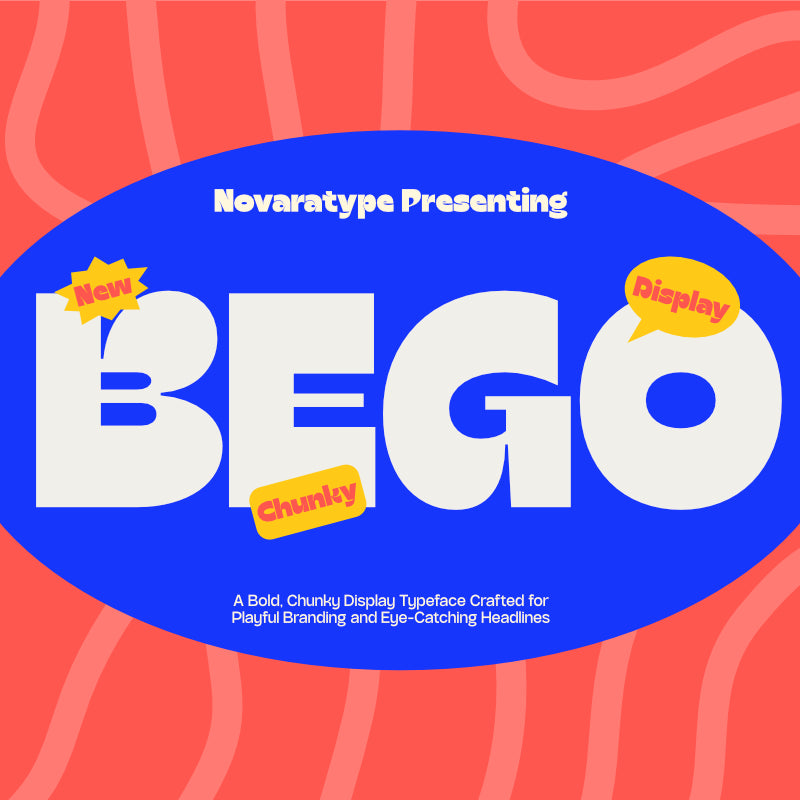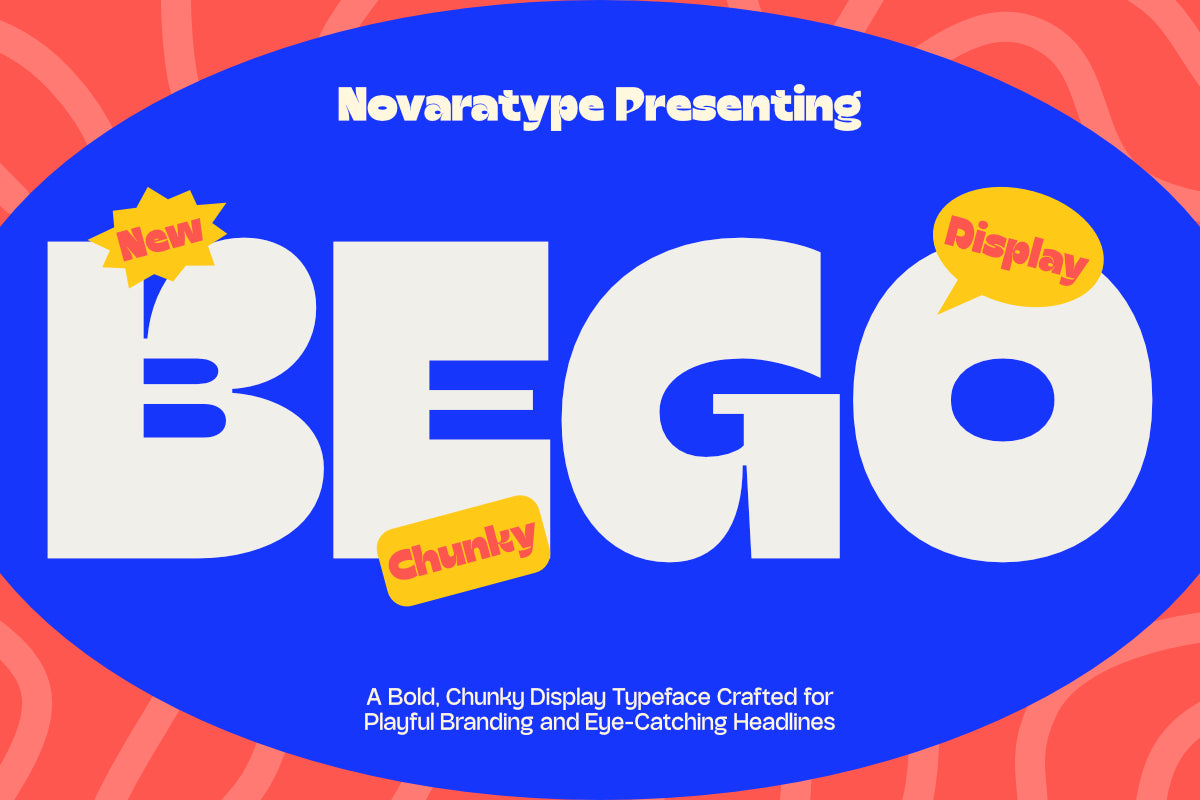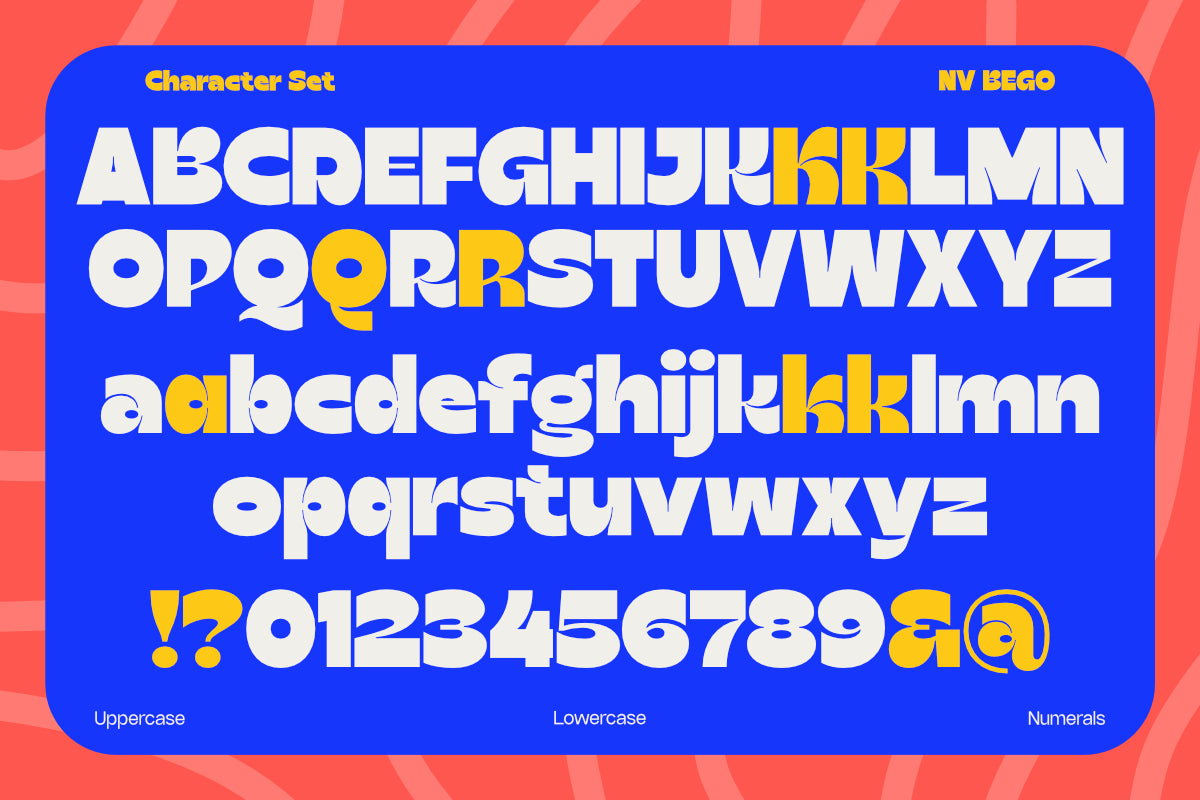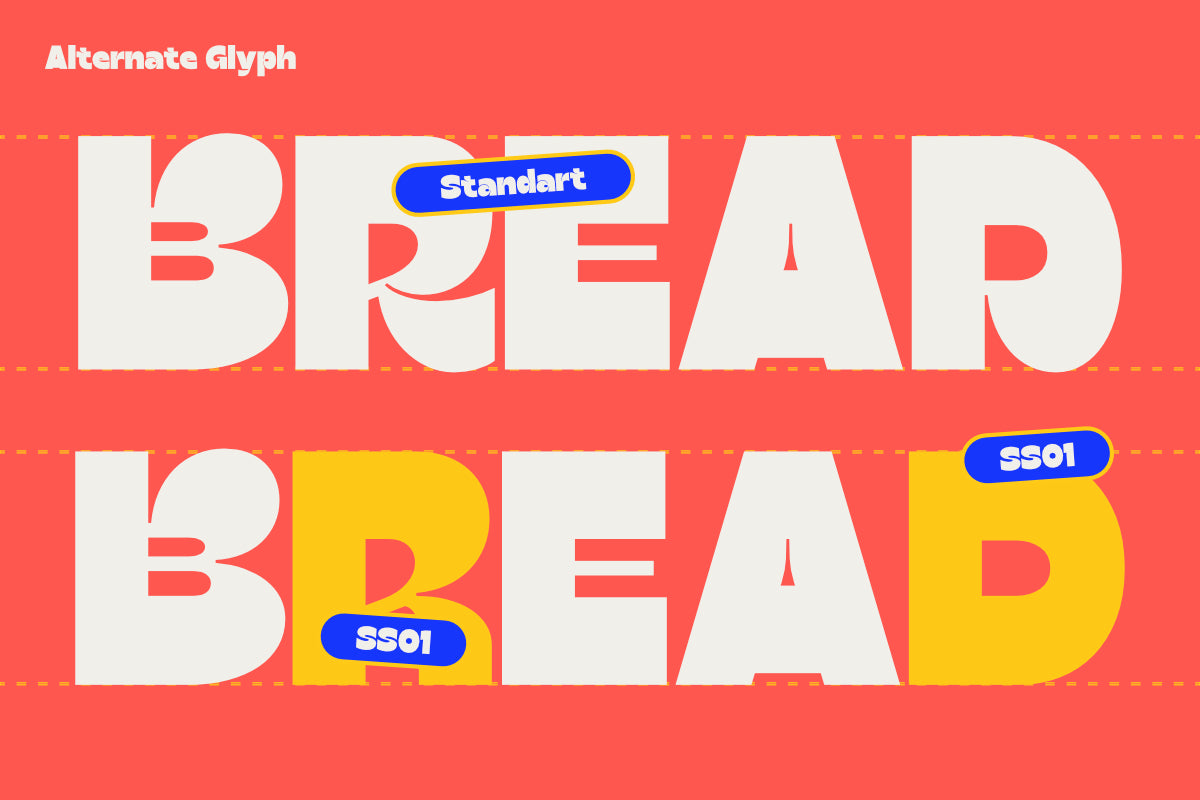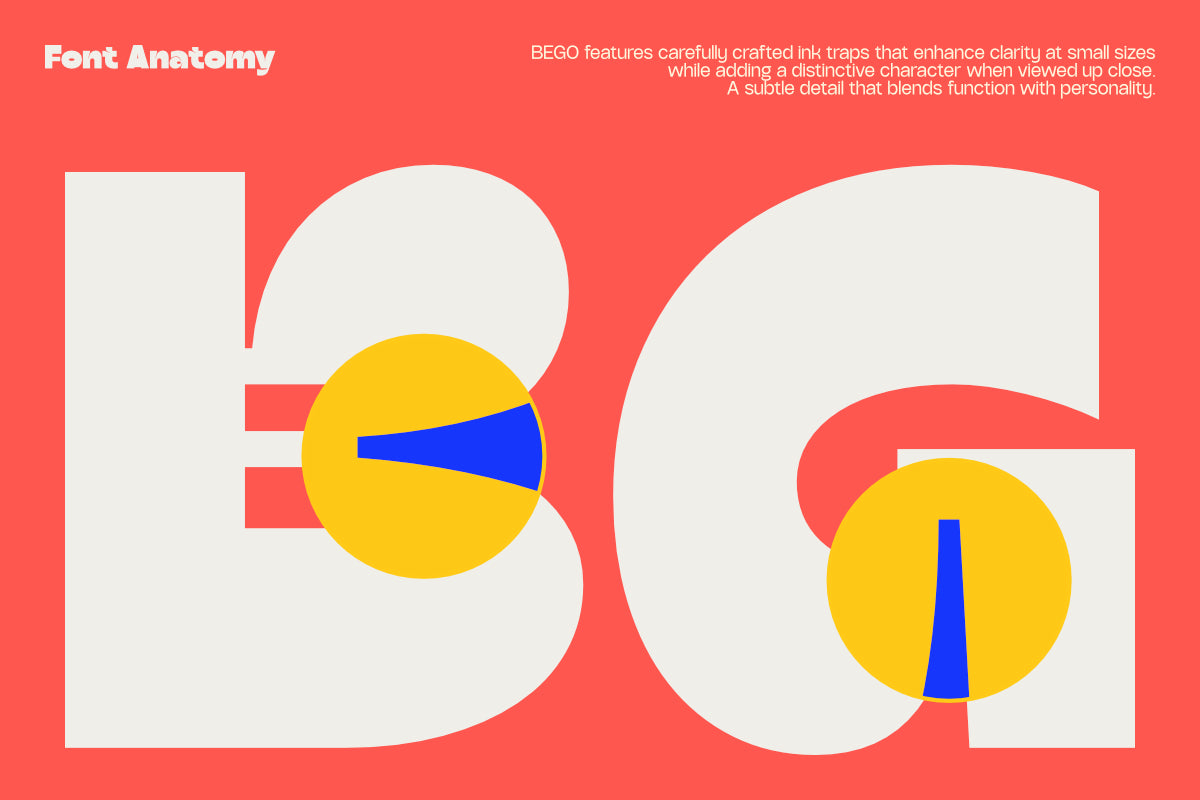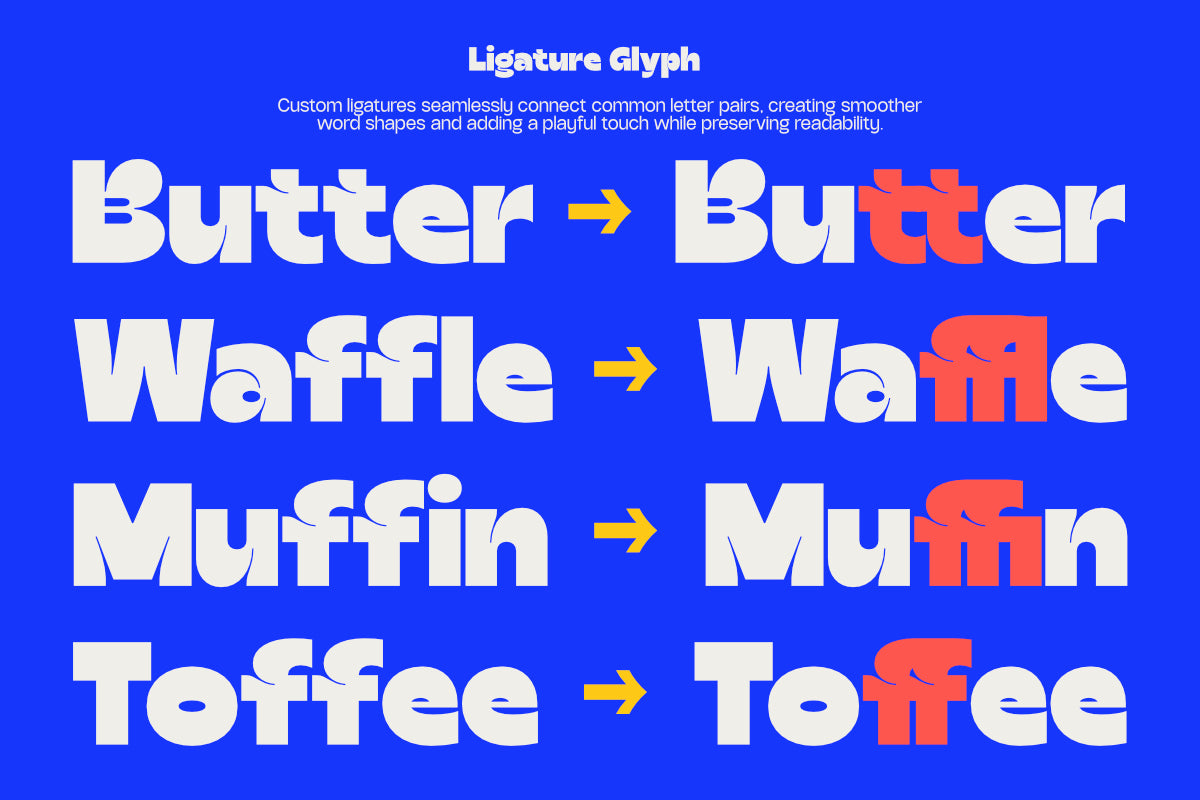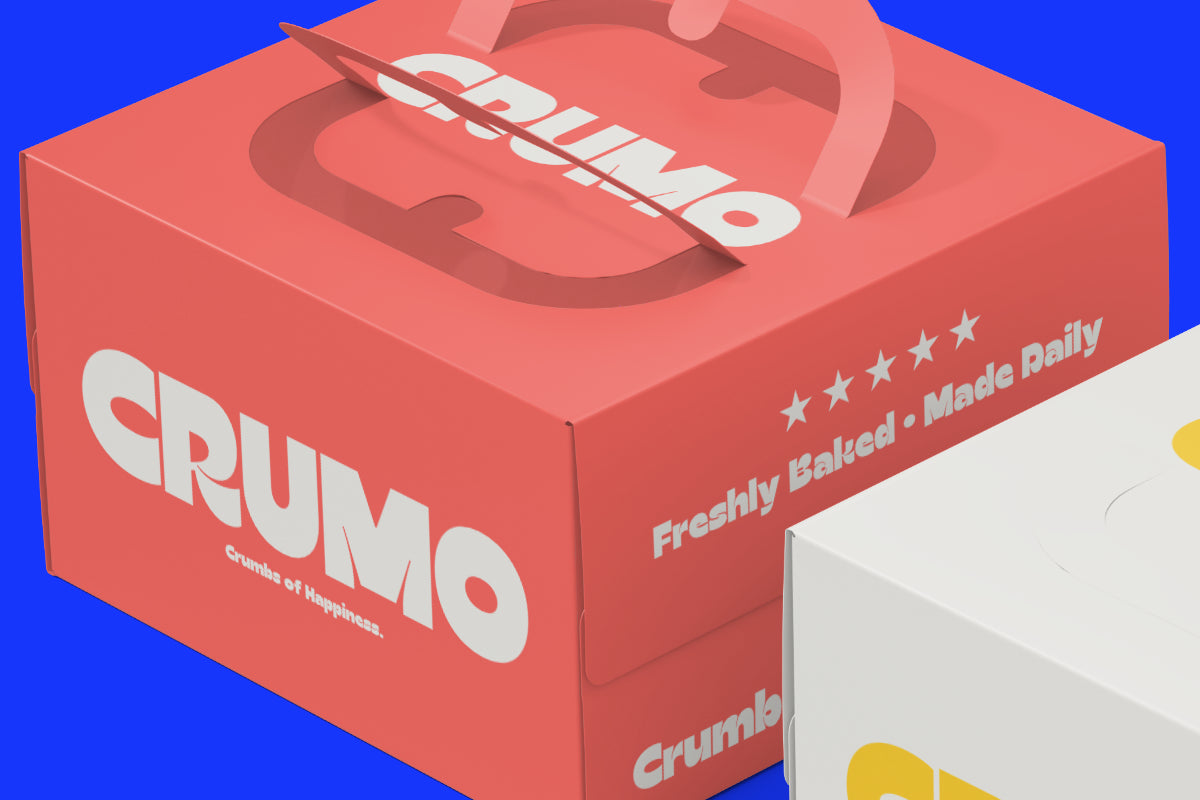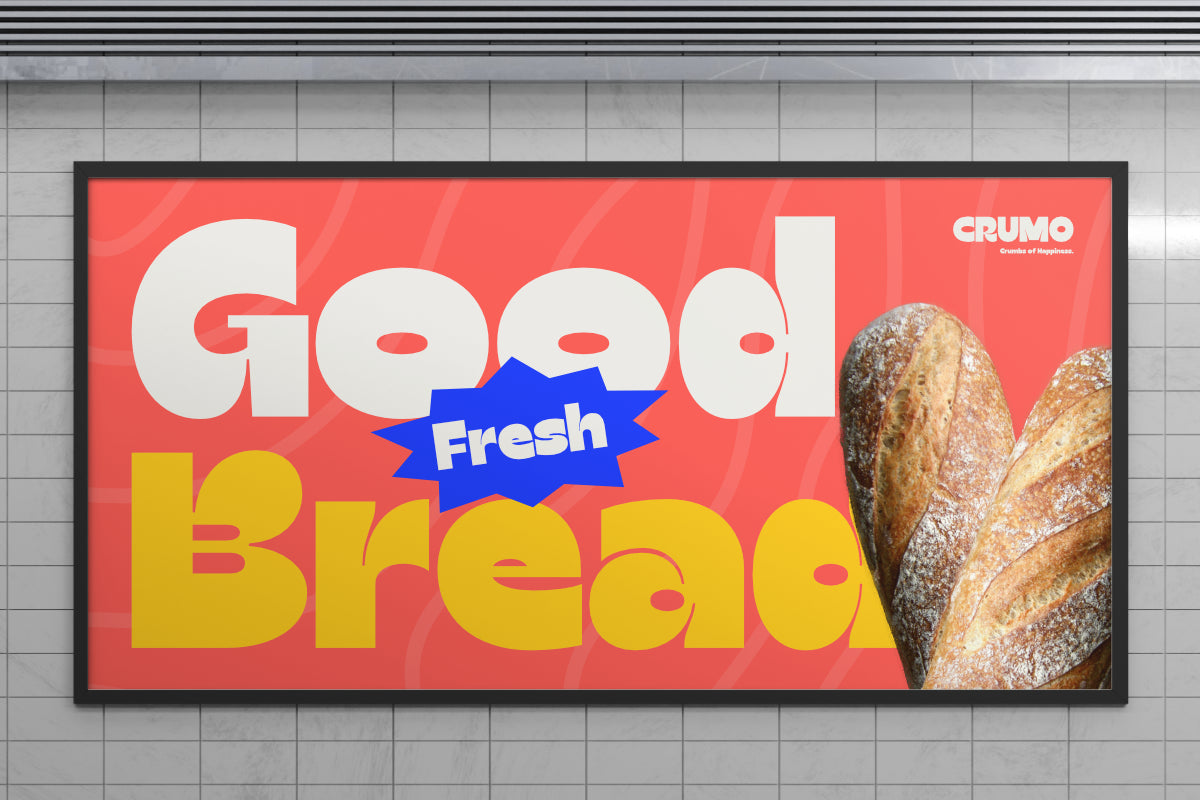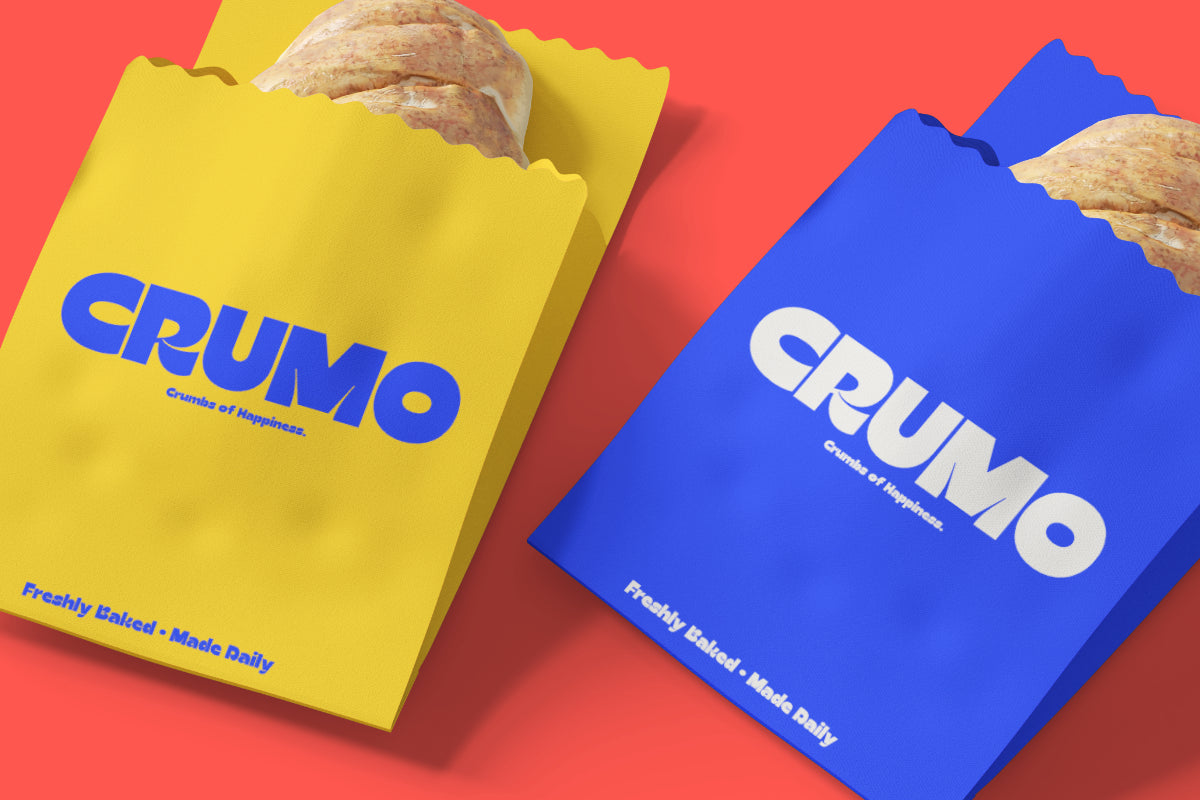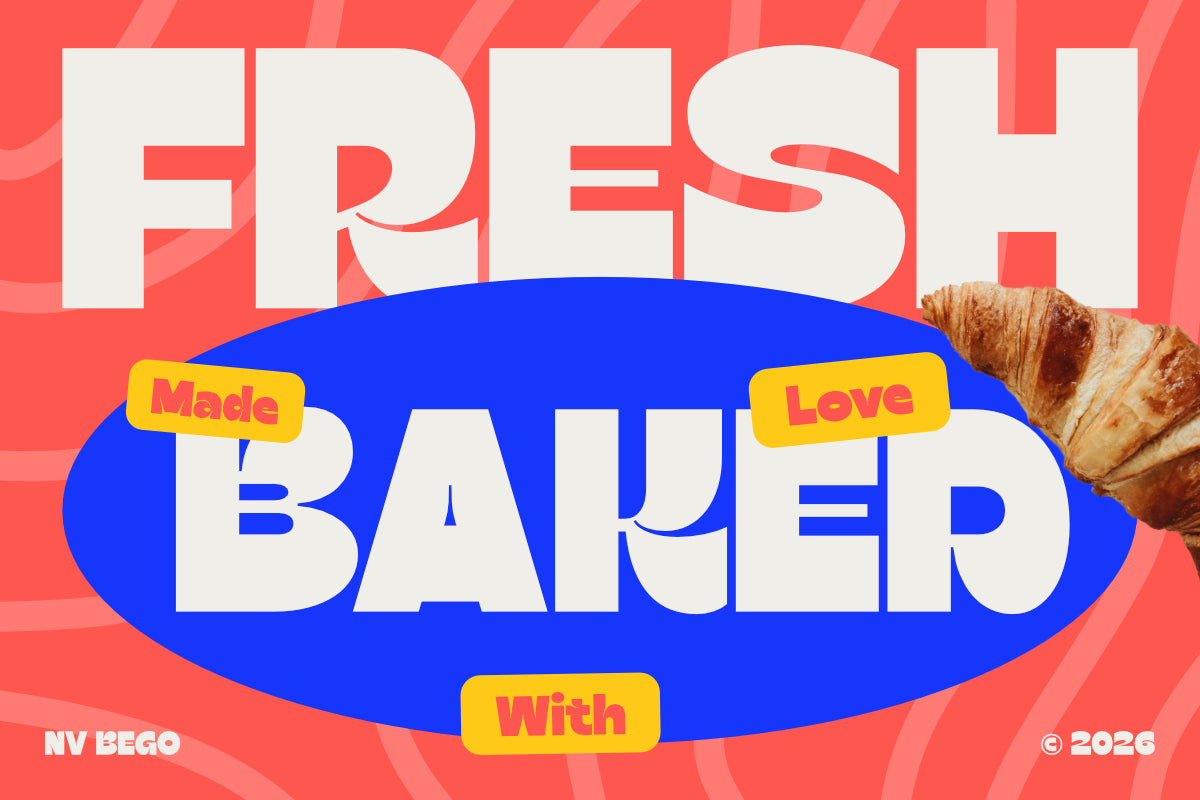
NV BEGO – Chunky Display Font
NV BEGO Chunky Display Font is a bold and energetic display typeface designed to bring fun, confidence, and unforgettable visual impact to creative projects. Developed by NovaraType, NV BEGO features chunky letterforms, rounded shapes, and playful proportions that create a friendly yet powerful personality—making it an excellent choice for branding, packaging, food & beverage products, children's designs, posters, merchandise, social media graphics, and vibrant visual identities.
NV BEGO is thoughtfully designed to deliver a distinctive typographic voice while maintaining excellent readability at large display sizes. Its thick strokes and expressive construction create a cheerful rhythm that instantly attracts attention, helping brands communicate with warmth, creativity, and confidence. Every glyph is carefully crafted to achieve visual balance without sacrificing its bold personality.
Whether you're designing colorful packaging, playful logos, café branding, event promotions, product labels, or engaging digital content, NV BEGO provides the charm and versatility needed to make every design memorable. Its modern chunky aesthetic and approachable character make it an ideal display font for designers looking to create bold, friendly, and impactful visual communication.
NV BEGO Chunky Display Font Includes:
Chunky Bold Style
Alternates & Ligatures
Numerals & Punctuation
Accented Characters
NV BEGO – Chunky Display Font is a bold and energetic typeface featuring chunky letterforms and rounded shapes, designed for excellent readability at large sizes. It includes a variety of OpenType features such as alternates, ligatures, numerals, punctuation, accented characters, and multilingual support, making it suitable for diverse design applications.